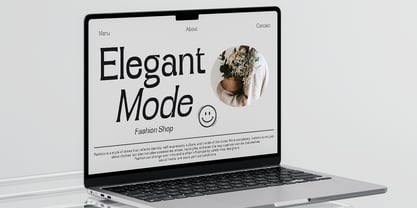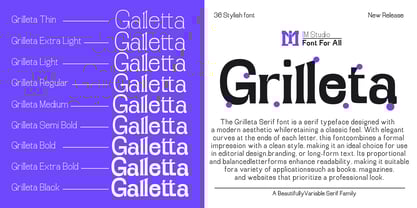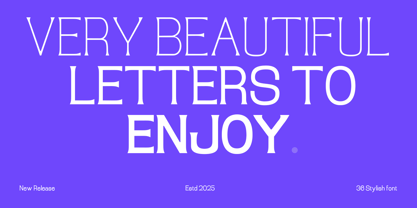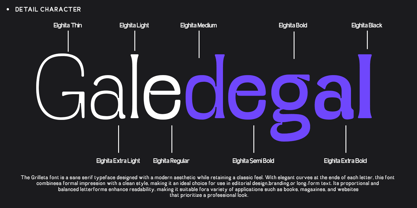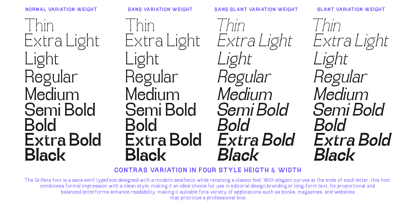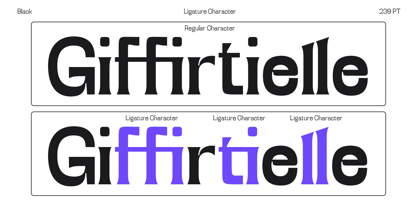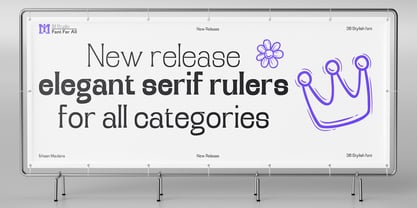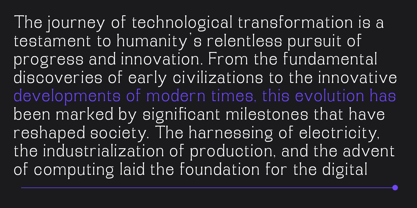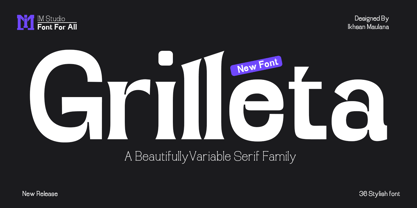
Grilleta
The Grilleta Font Family was designed by Ikhsan Maulana and published by IM Studio. Grilleta contains 40 styles and family package options. More about this family
Stability and Precision with a Familiar Touch
Grilleta is a dependable companion that brings clarity and charm to your designs. Its familiar structure makes it intuitive to use—like a trusted friend you've collaborated with time and again.
As a sans-serif typeface, Grilleta merges functionality with warmth, making it a standout choice for dynamic branding and attention-grabbing advertising. It artfully blends geometric forms with a welcoming aesthetic, giving select characters a playful edge. Rounded, compact letterforms and bold character shapes lend a unique personality to every word.
Grilleta’s well-balanced weight range offers versatility across a wide range of branding applications—from bold headlines in modern apps and websites to refined uses in print. Its strong horizontal alignment ensures visual stability on any background, making it perfect for web usage and impactful slogans.
An ideal choice for technology-forward brands, Grilleta leaves a memorable impression while delivering both performance and personality.